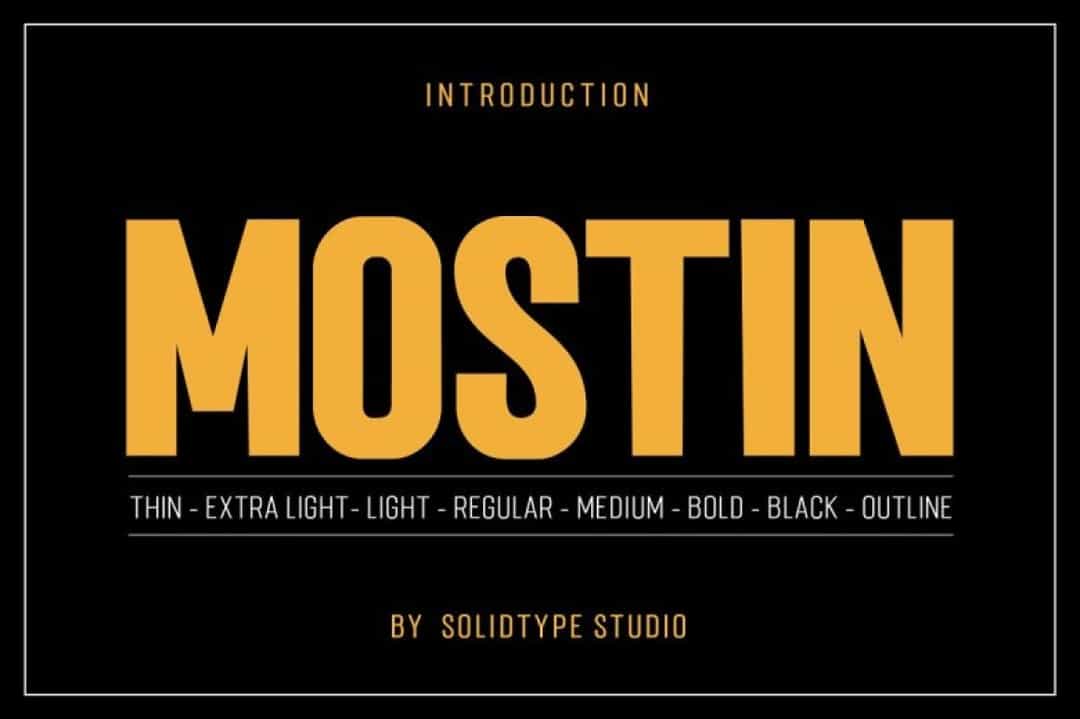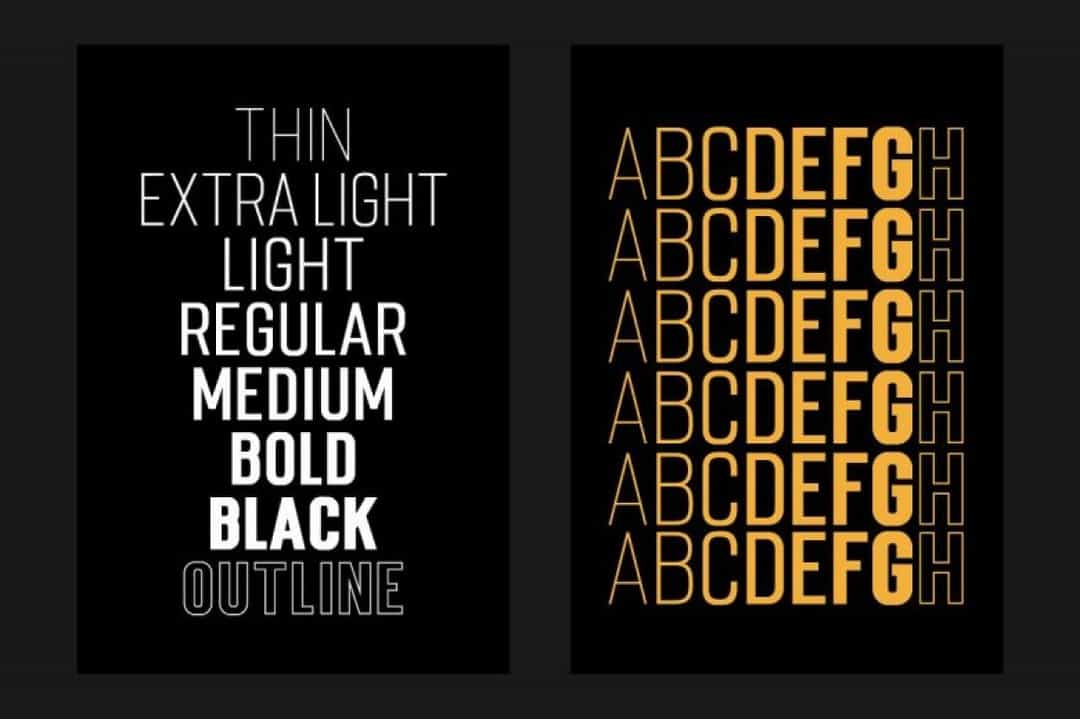
The Mostin Font Family is a contemporary yet classic typeface designed with strength and lively character, making it perfect for branding logos, posters, magazines blog titles titles etc.